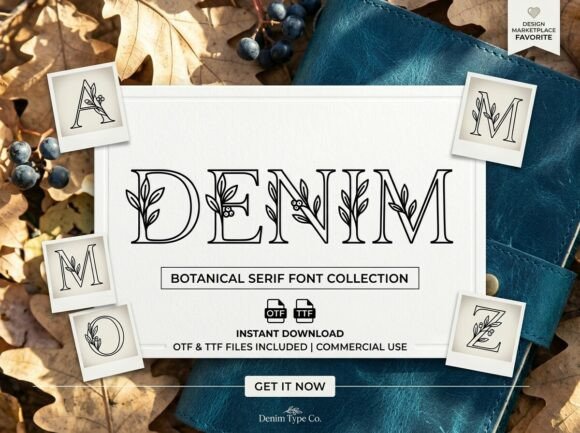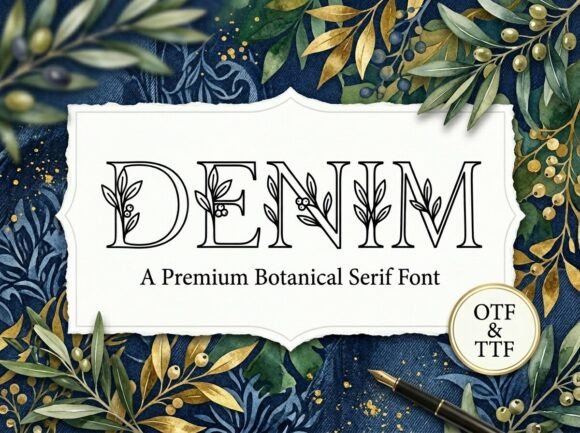
Introducing Denim Font: Elevate Your Designs with Timeless Sophistication
Are you looking for a font that exudes classic elegance and sophistication? Look no further than Denim, a stunning display serif font that embodies the essence of timelessness and botanical charm. This beautiful font is perfect for designers and crafters seeking to add a touch of refinement to their projects.
The Unique Features of Denim Font
Denim font boasts elegant, hollow serif letterforms that are masterfully entwined with rhythmic, hand-drawn olive branches and delicate berry flourishes. These intricate details bloom from the stems of each character, creating a truly unique and eye-catching visual effect. The font’s balanced structural weight and prestigious personality make it an ideal choice for a variety of design applications.
Perfect for High-End Branding and Editorial Layouts
Denim font is particularly well-suited for independent high-end skincare branding, artisanal textile labels, and classic editorial layouts. Its sophisticated and refined aesthetic is sure to elevate your designs and make them stand out from the crowd. Whether you’re creating a luxurious skincare brand or a high-end fashion publication, Denim font is the perfect choice.
Make a Statement with Heritage and Horticulture Themes
Denim font is also ideal for creating high-impact social media headers that showcase a heritage and horticulture theme. The font’s botanical elements and classic serif design make it perfect for highlighting your brand’s connection to nature and tradition. Whether you’re promoting a gardening blog, a vintage-inspired clothing line, or a high-end floral arrangement service, Denim font is sure to make a statement.
Key Benefits of Using Denim Font
- Timeless elegance: Denim font’s classic design ensures that your projects will remain stylish and sophisticated for years to come.
- Unique botanical elements: The font’s hand-drawn olive branches and berry flourishes add a touch of whimsy and visual interest to your designs.
- High-end appeal: Denim font’s prestigious personality makes it perfect for luxury branding and editorial layouts.
- Versatility: The font is suitable for a wide range of design applications, from skincare branding to social media headers.
Tips for Using Denim Font Effectively
To get the most out of Denim font, consider the following tips:
- Use it as a display font: Denim font is designed to make a statement, so use it as a display font to draw attention to your brand or message.
- Pair it with a simple sans-serif font: For body text, pair Denim font with a simple sans-serif font to create a striking contrast.
- Experiment with colors: Denim font looks stunning in a range of colors, from rich greens and blues to elegant golds and silvers.
Denim font is a truly unique and sophisticated font that is sure to elevate your designs and make them stand out from the crowd. With its timeless elegance, botanical elements, and high-end appeal, it’s the perfect choice for designers and crafters seeking to add a touch of refinement to their projects. Whether you’re creating a luxury skincare brand, a high-end fashion publication, or a heritage-themed social media header, Denim font is the premier choice.